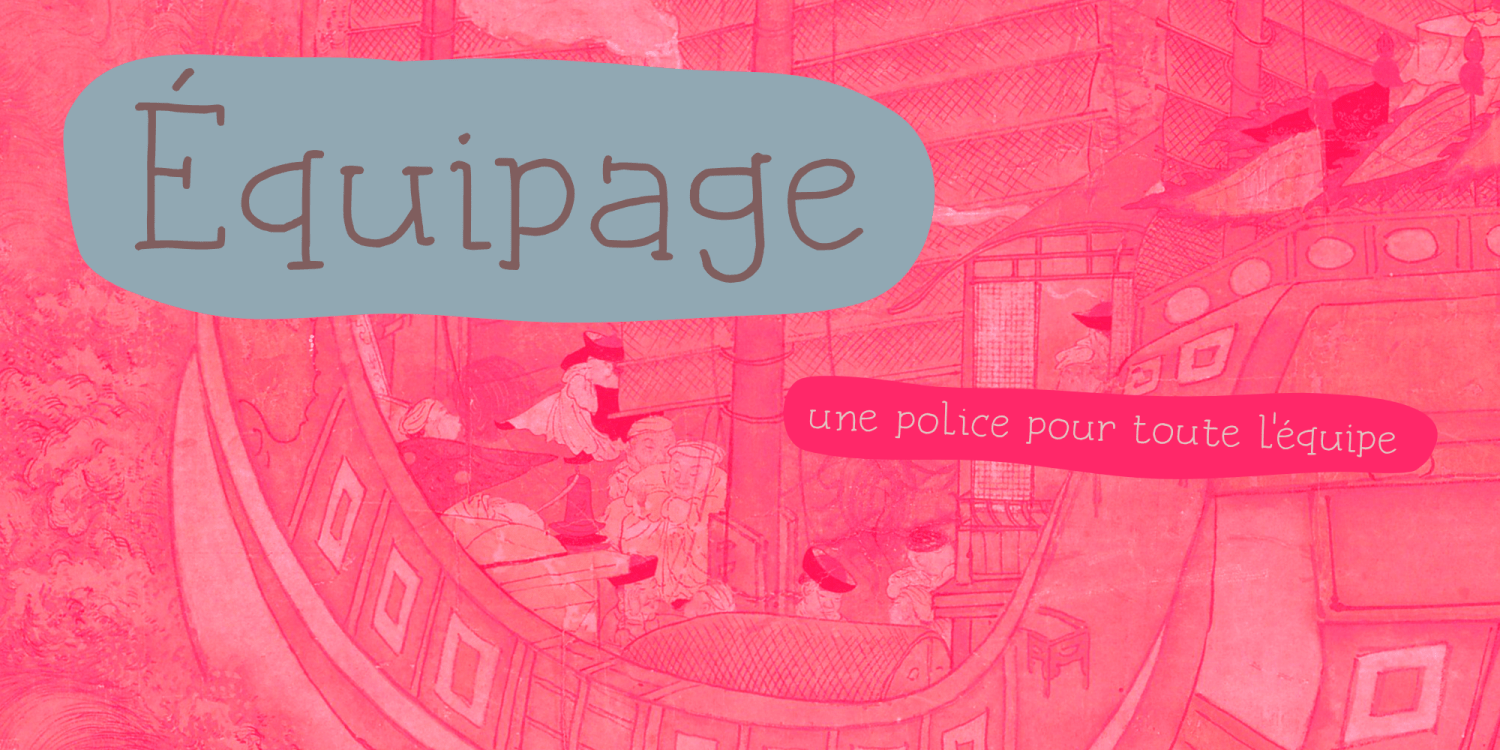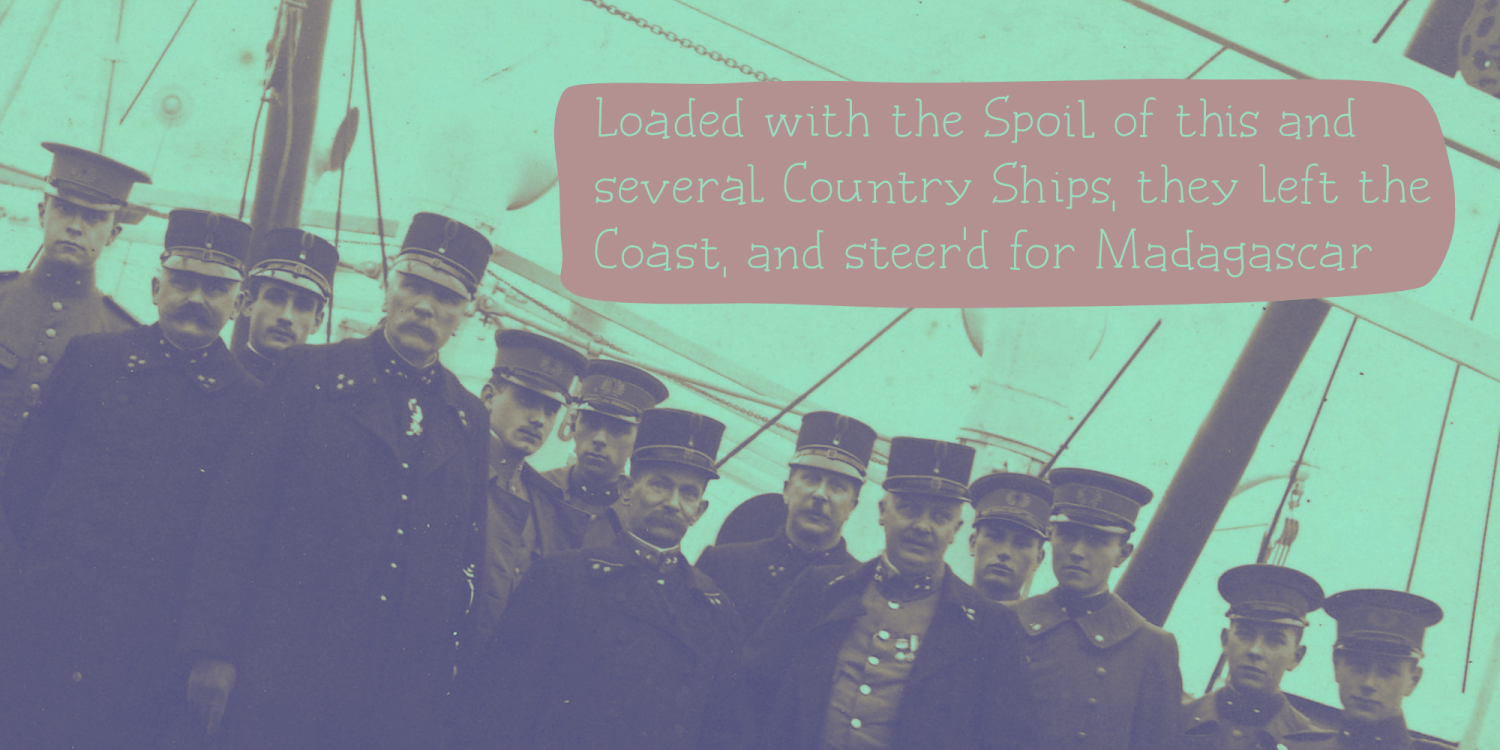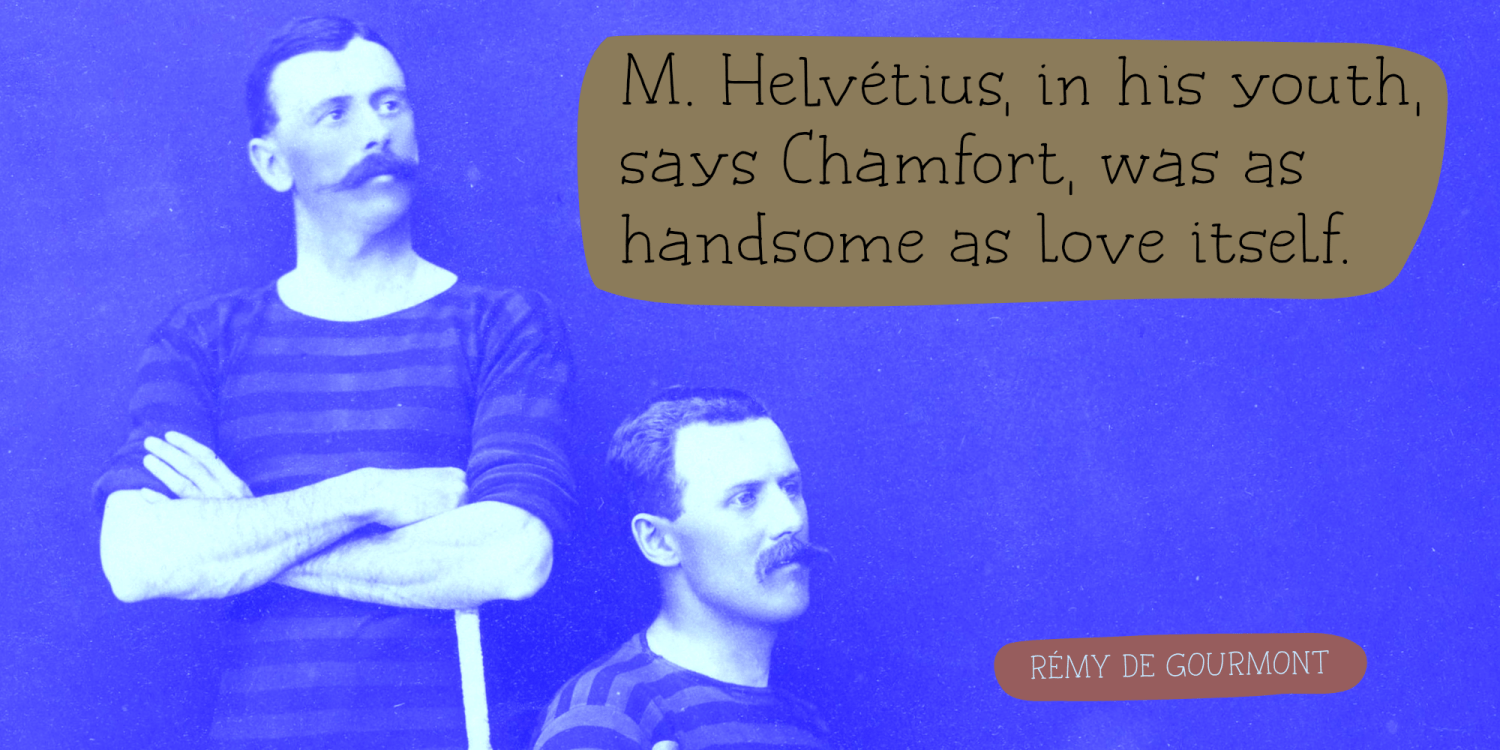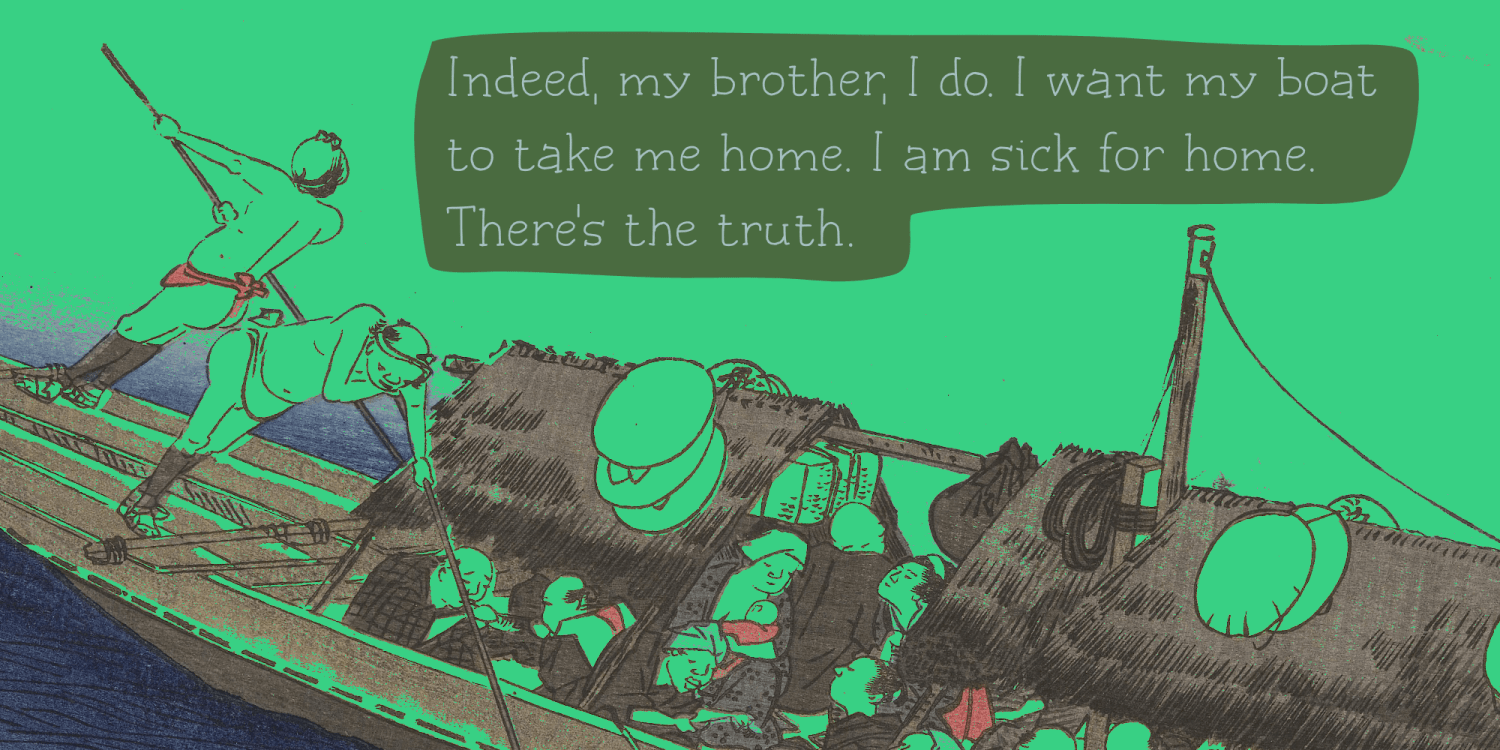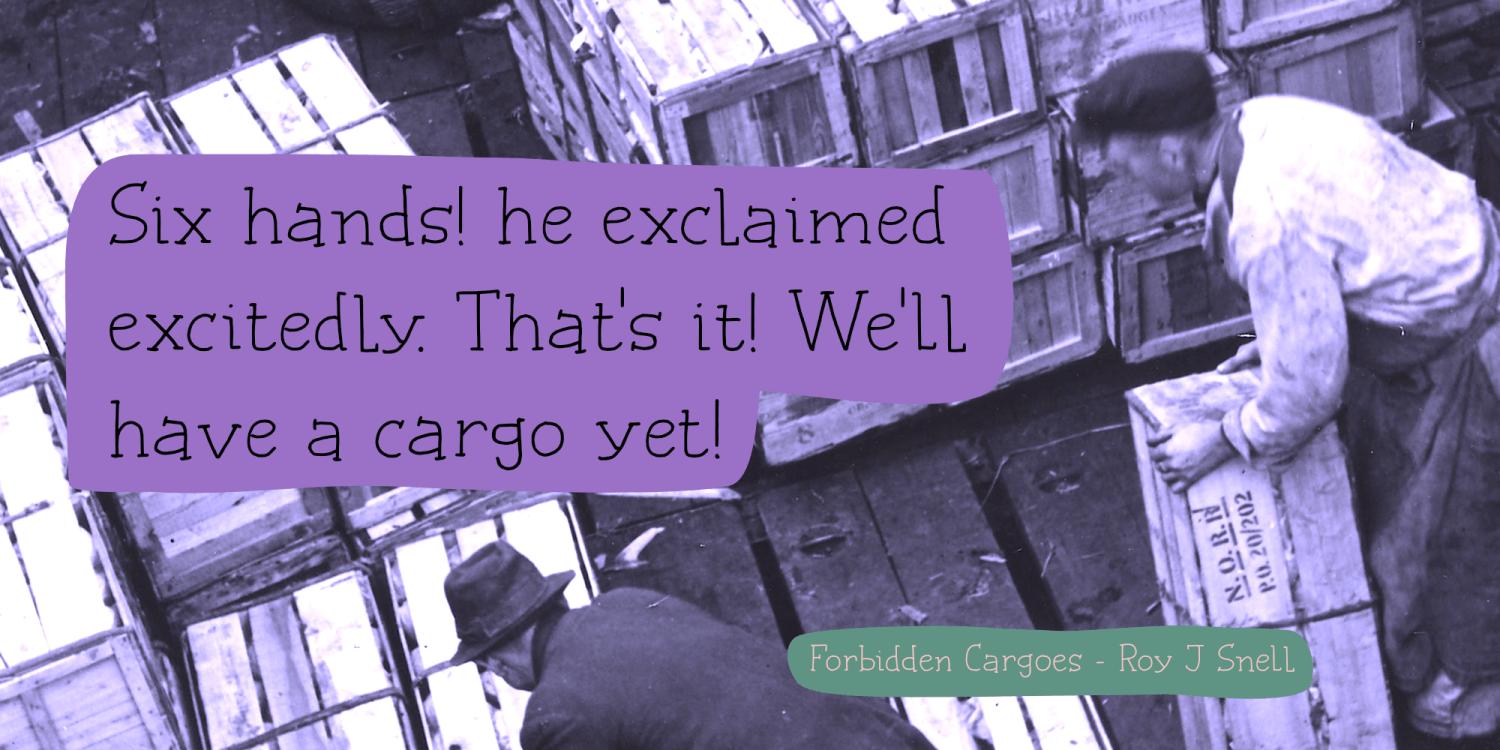
Équipage
Équipage is a French word meaning ‘crew’. It is used for the crew on boats, airplanes, but it also applies to horse-drawn carriages and all that goes with it. Originally the word means ‘to fit out’ and it is probably derived from the Norse word ‘skipa’, which means ‘arrange, fit out a ship’. Then, if you’re really interested, the word ‘ship’ hails from this same word, just like the Danish ‘skib’, Middle Dutch ‘ship’, Dutch ‘schip’ and German ‘Schiff’.
Équipage is a really nice, handmade serif font. It is quite elegant and would look fantastic on labels, postcards and book covers. Comes with extensive language support and a set of alternates for the lower case glyphs.